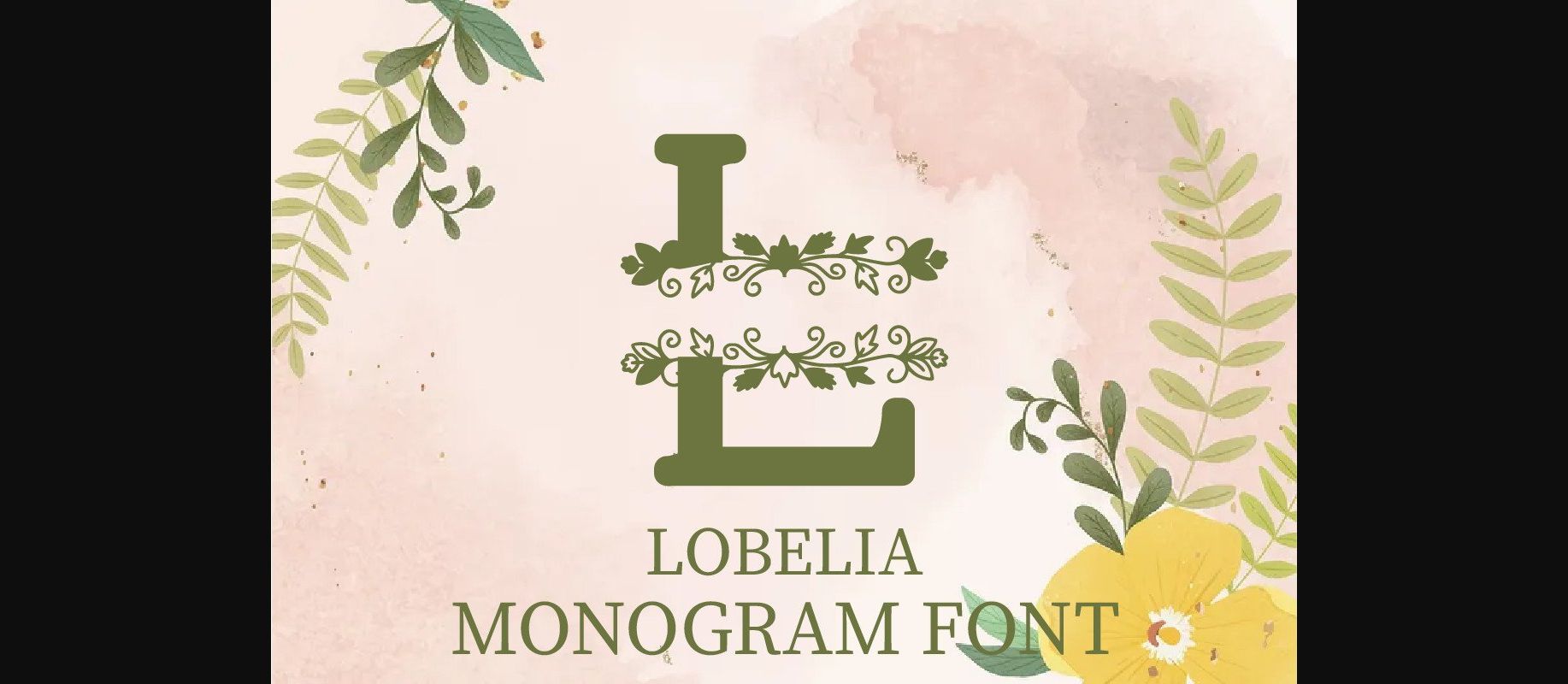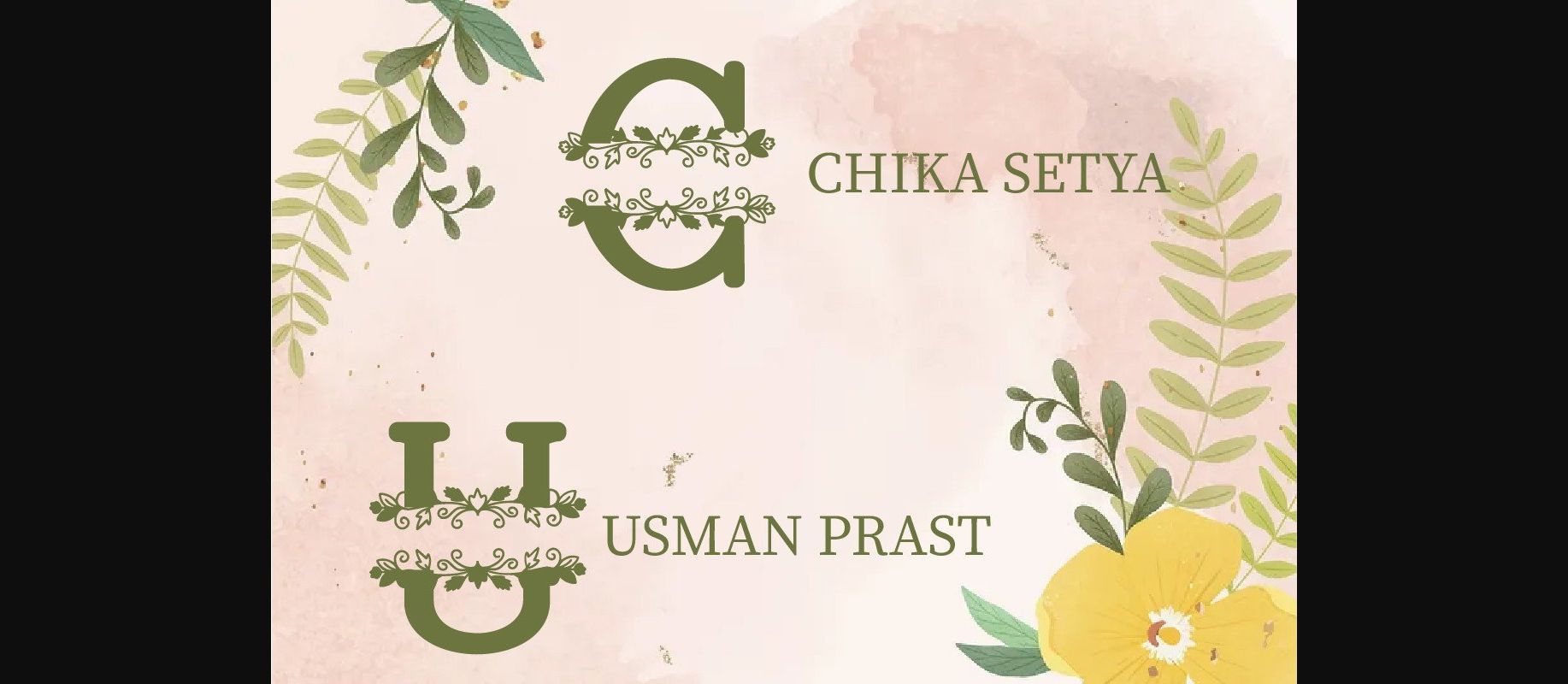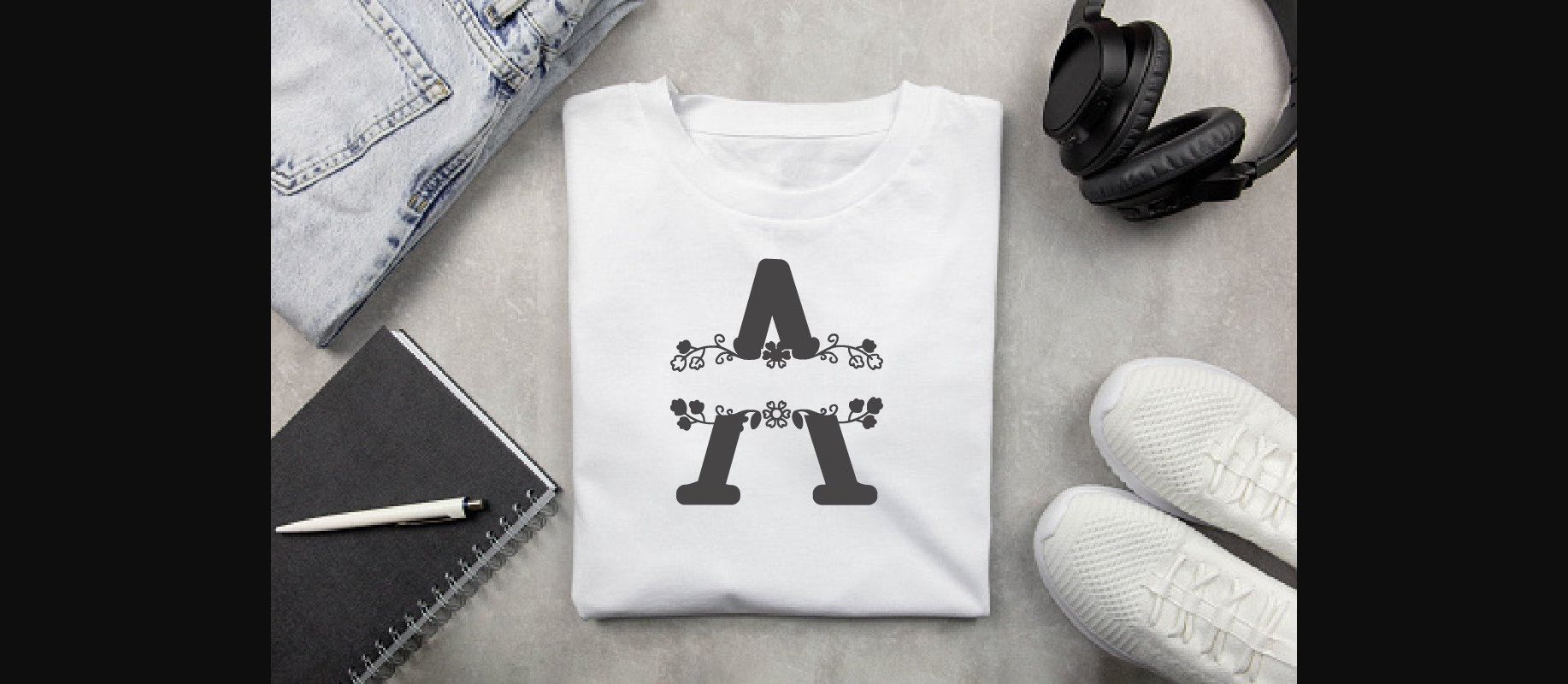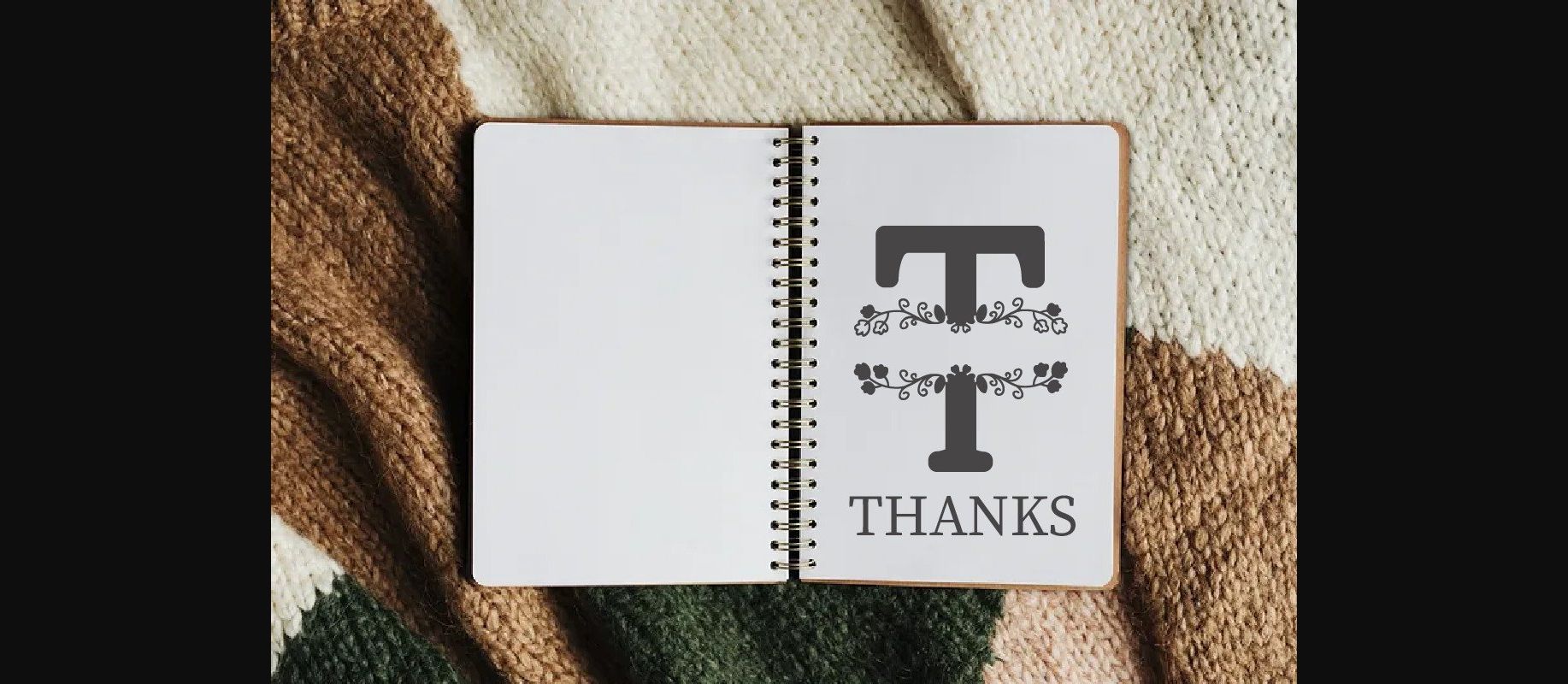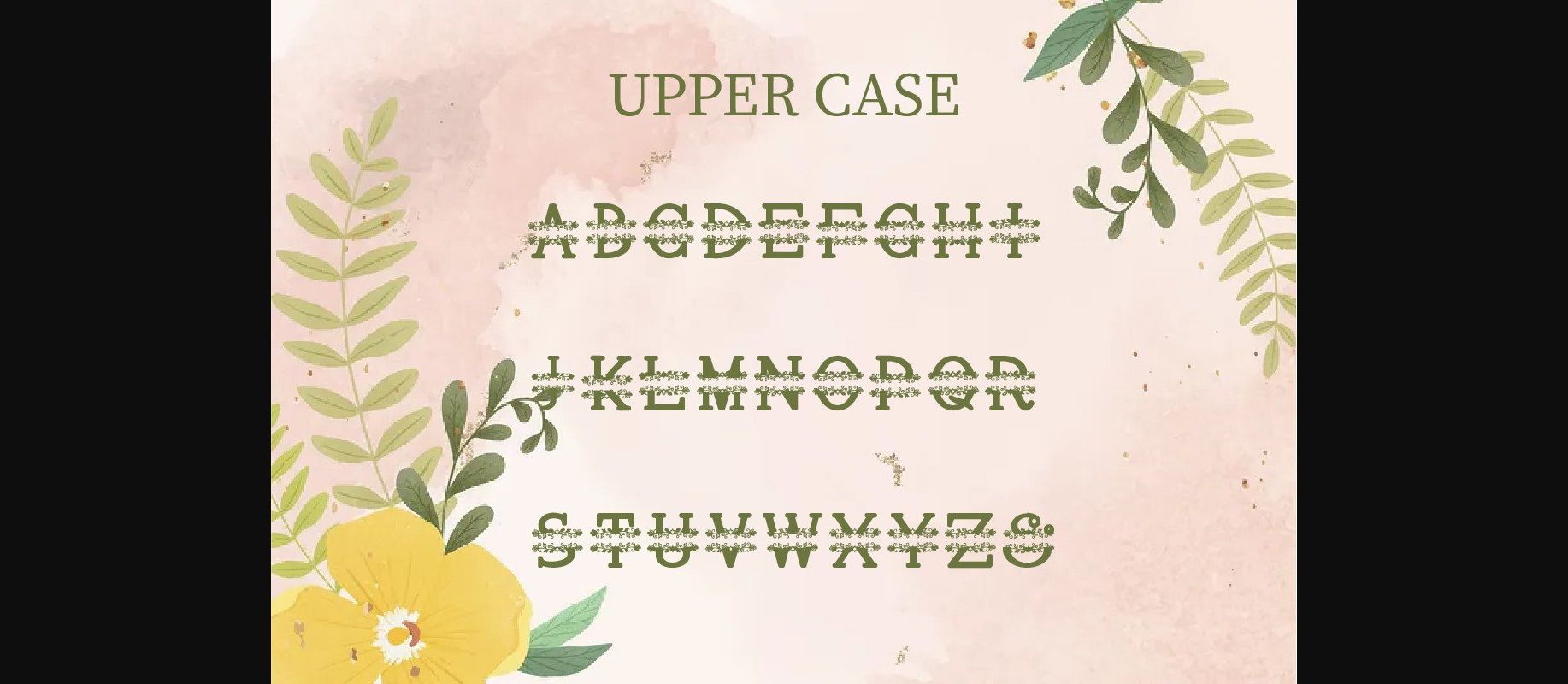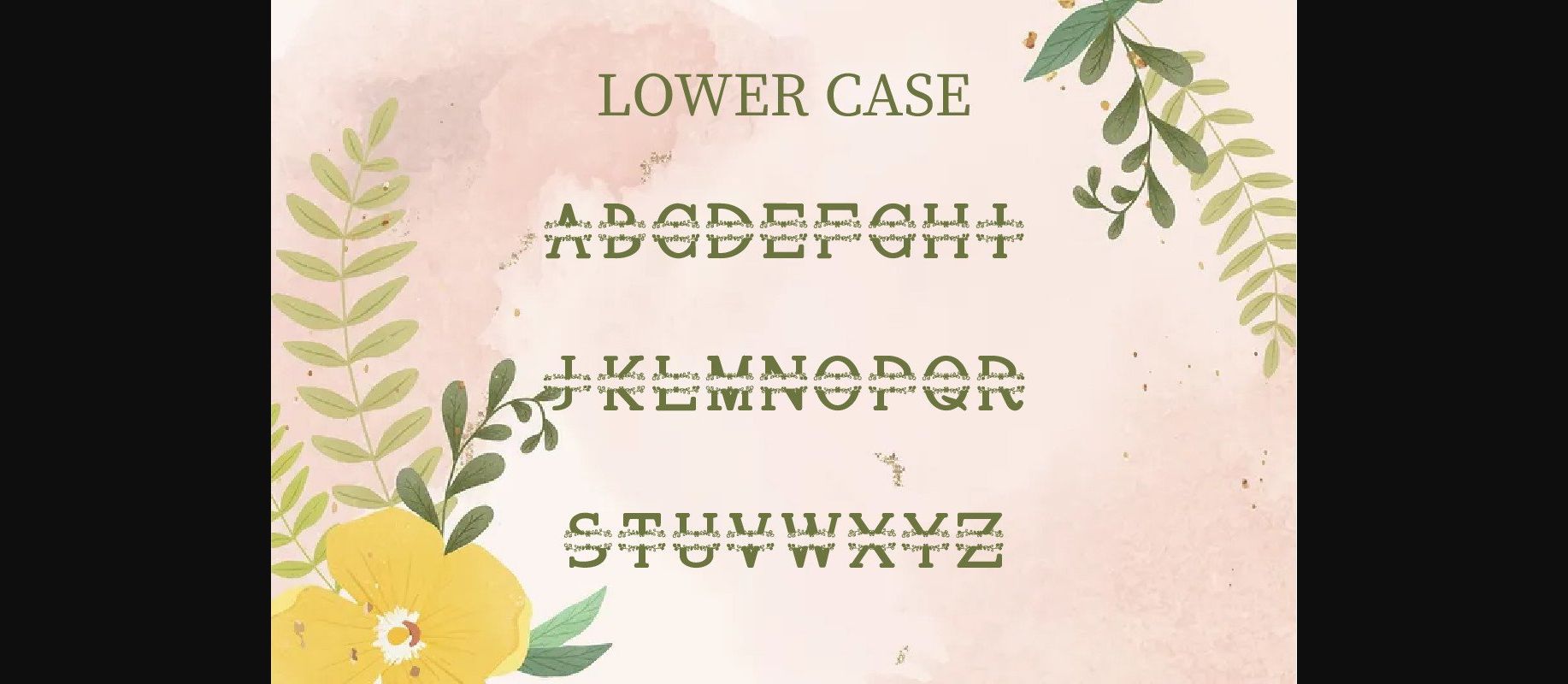
Lobelia is a beautiful and unique floral decorative font. This font can enhance your creative projects like invitations, earrings, logos, or anything that needs a lovely, romantic touch.